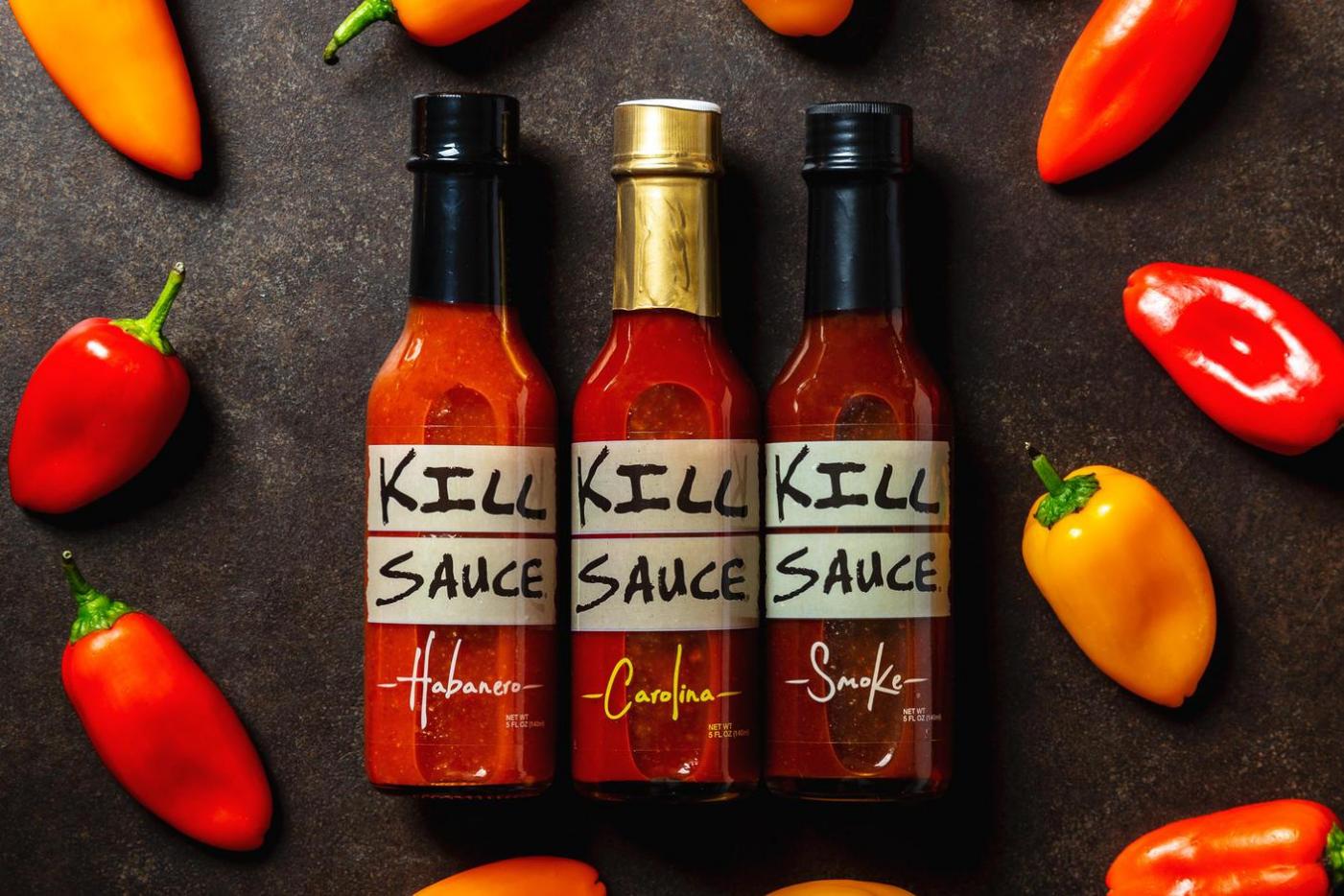
Hand Written / marker font (Habanero, Carolina, Smoke)
Looking for this hand written or marker font used for the kind of hot sauce. Habanero, Carolina and Smoke.
NOT the "KILL SAUCE" logo font.